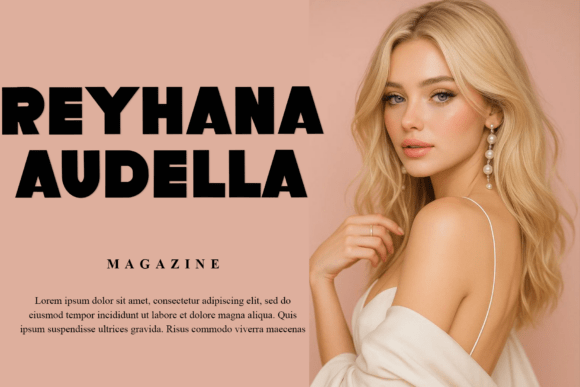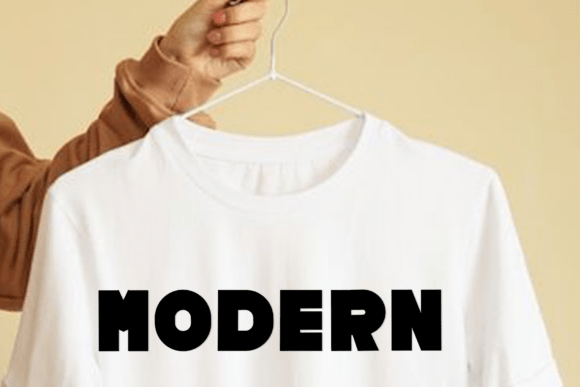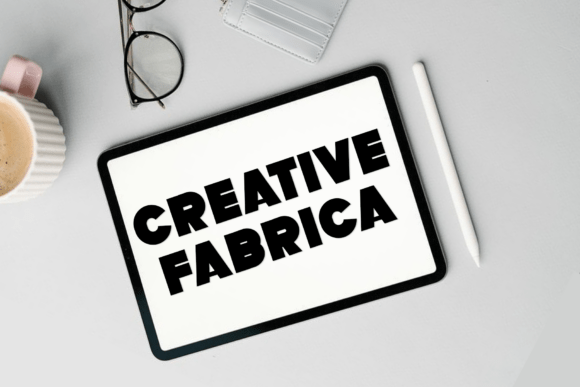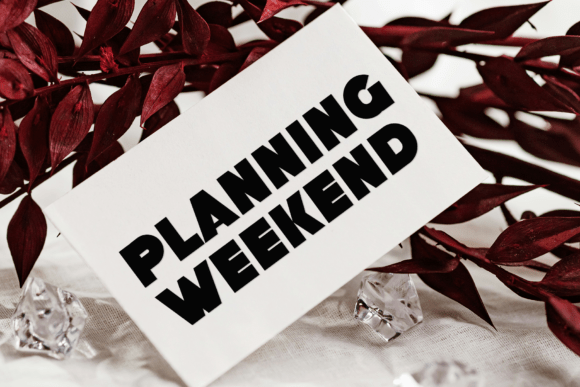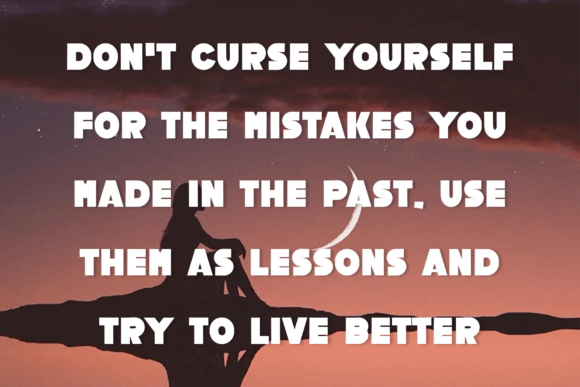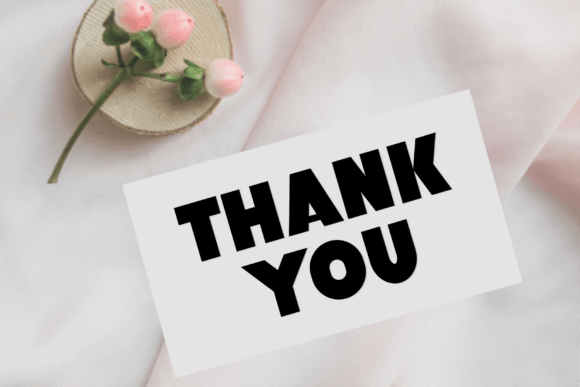
The Power of Farm Font: A Designer’s Best Friend
I’ll never forget the time I was working on a branding project for a local farm-to-table restaurant. My client wanted a font that would convey strength, reliability, and a touch of rustic charm. I spent hours scouring the internet for the perfect font, but nothing seemed quite right. That was until I stumbled upon Farm Font. 💥
With its bold, geometric letterforms and strong visual presence, Farm Font was love at first sight. I knew immediately that it was the perfect fit for my client’s project. But what really sets Farm Font apart is its versatility. Whether you’re designing for a farming business, food brand, or a rustic event, this font delivers clarity and boldness with a modern edge.
An Honest Review of Farm Font
- 💪 **Bold and powerful**: Farm Font is perfect for making a statement. Its thick, geometric letterforms demand attention and convey strength and reliability.
- 🌾 **Agricultural charm**: The font’s rustic feel makes it perfect for agricultural branding, rural-themed designs, and outdoor signage.
- 📦 **Packaging perfection**: Farm Font is ideal for product packaging, especially for food and beverage brands looking for a bold, modern look.
- 👍 **Easy to read**: Despite its bold weight, Farm Font is surprisingly easy to read, even at smaller sizes.
- ⚠️ **Limited script options**: Farm Font is primarily a display font, so it may not be the best choice for body text or lengthy paragraphs.
- 🤔 **Some glyphs may not be suitable for all languages**: As with any font, it’s essential to test Farm Font with your specific language and character set to ensure compatibility.
- Take advantage of OpenType features, such as glyphs and stylistic alternates, to add more depth and character to your design.
- Use Farm Font to create bold, eye-catching headings and titles that add a touch of rustic charm to your documents.
The Story Behind Farm Font
Farm Font was designed with the goal of creating a bold, modern font that would convey strength and reliability. The designer, inspired by the rustic charm of rural landscapes, set out to create a font that would be perfect for agricultural branding, outdoor signage, and product packaging. With its geometric letterforms and clean structure, Farm Font is the perfect choice for designers looking for a font that makes a statement.
| What is Farm Font best used for? | Farm Font is perfect for agricultural branding, rural-themed designs, product packaging, posters, and outdoor signage. |
| Is Farm Font suitable for body text? | While Farm Font is primarily a display font, it can be used for short paragraphs or captions. However, it’s not recommended for lengthy body text. |
| Is Farm Font available in different weights or styles? | Farm Font is currently available in a single bold weight. However, the designer may release additional weights or styles in the future. |